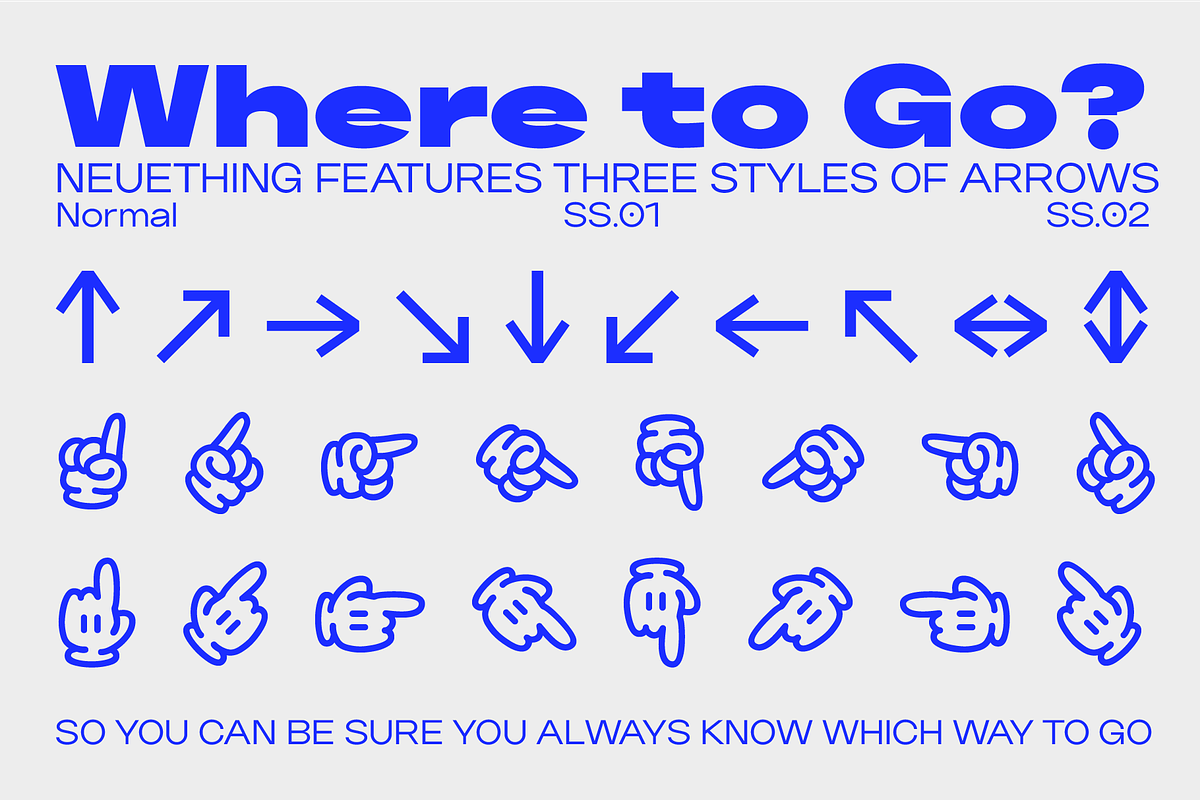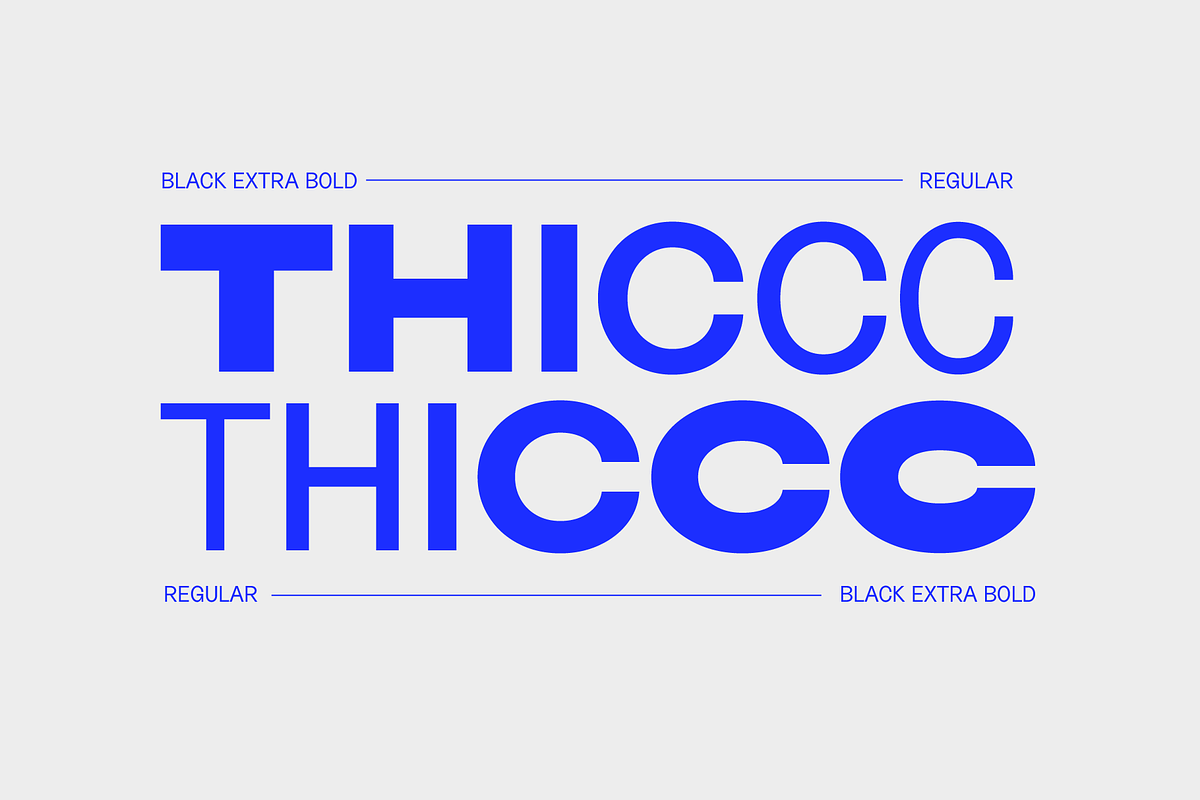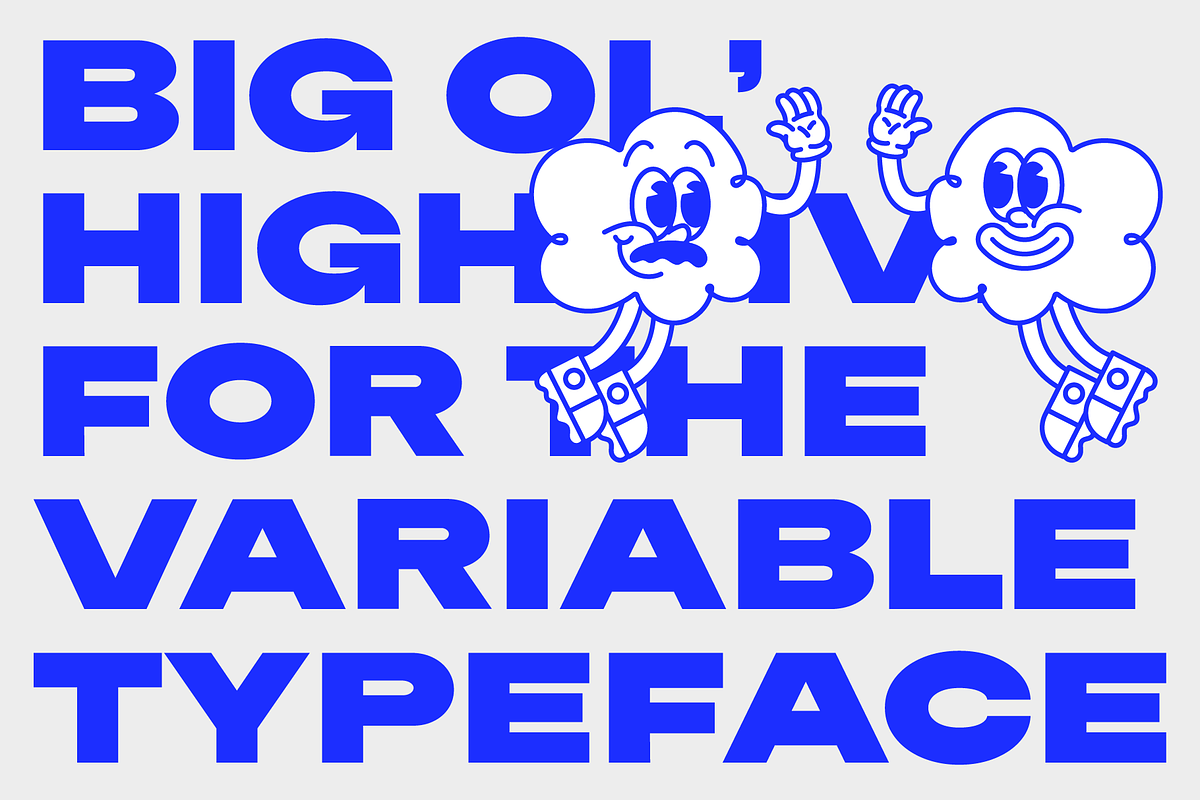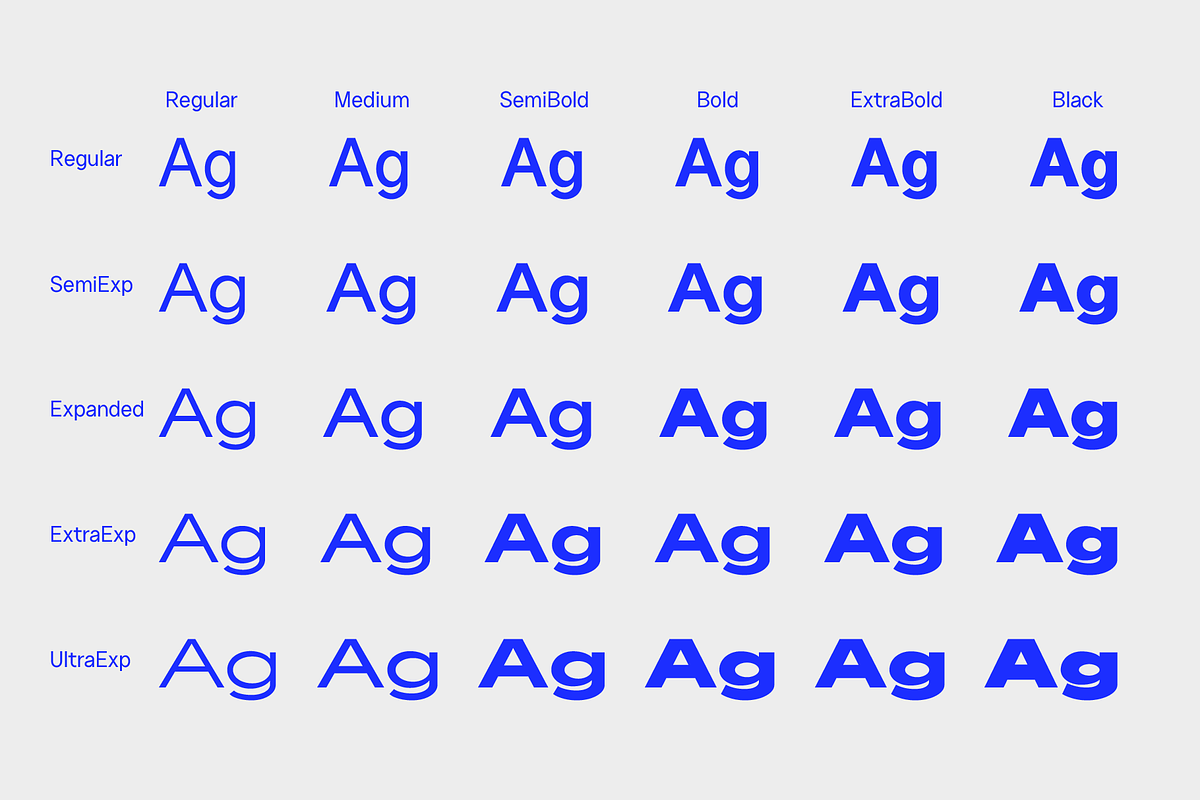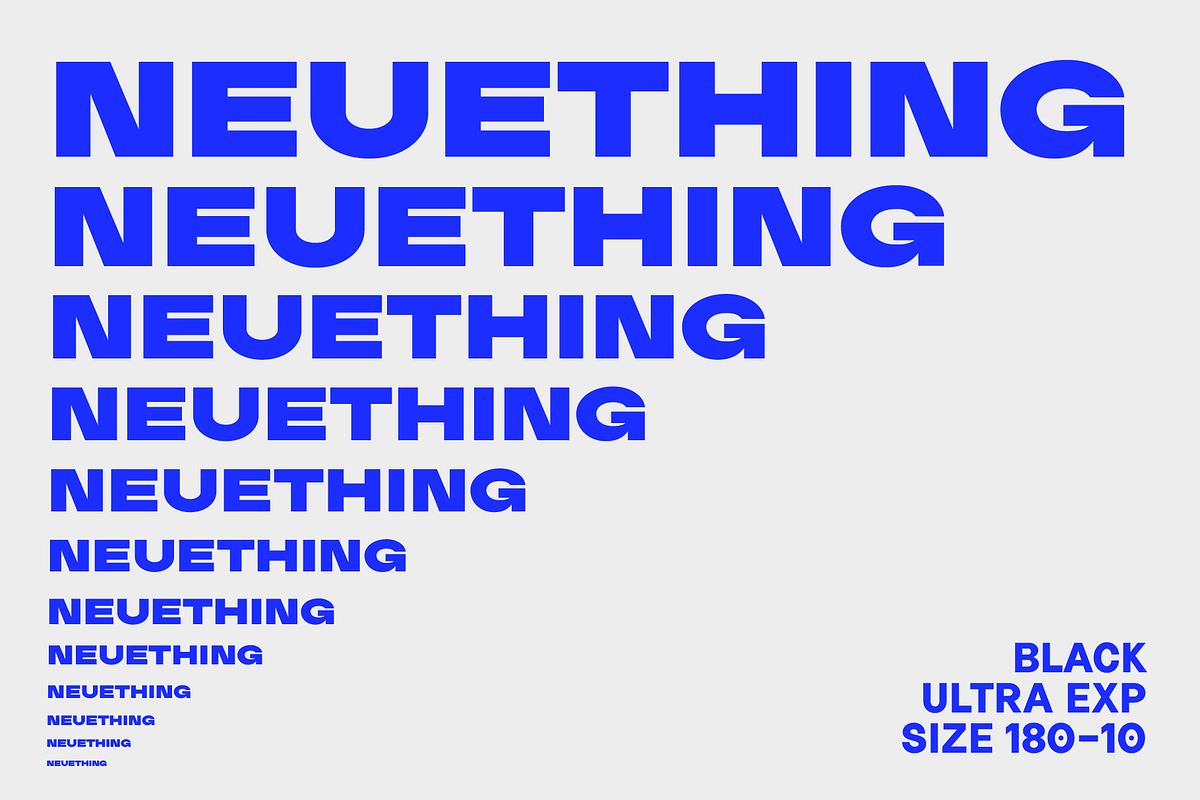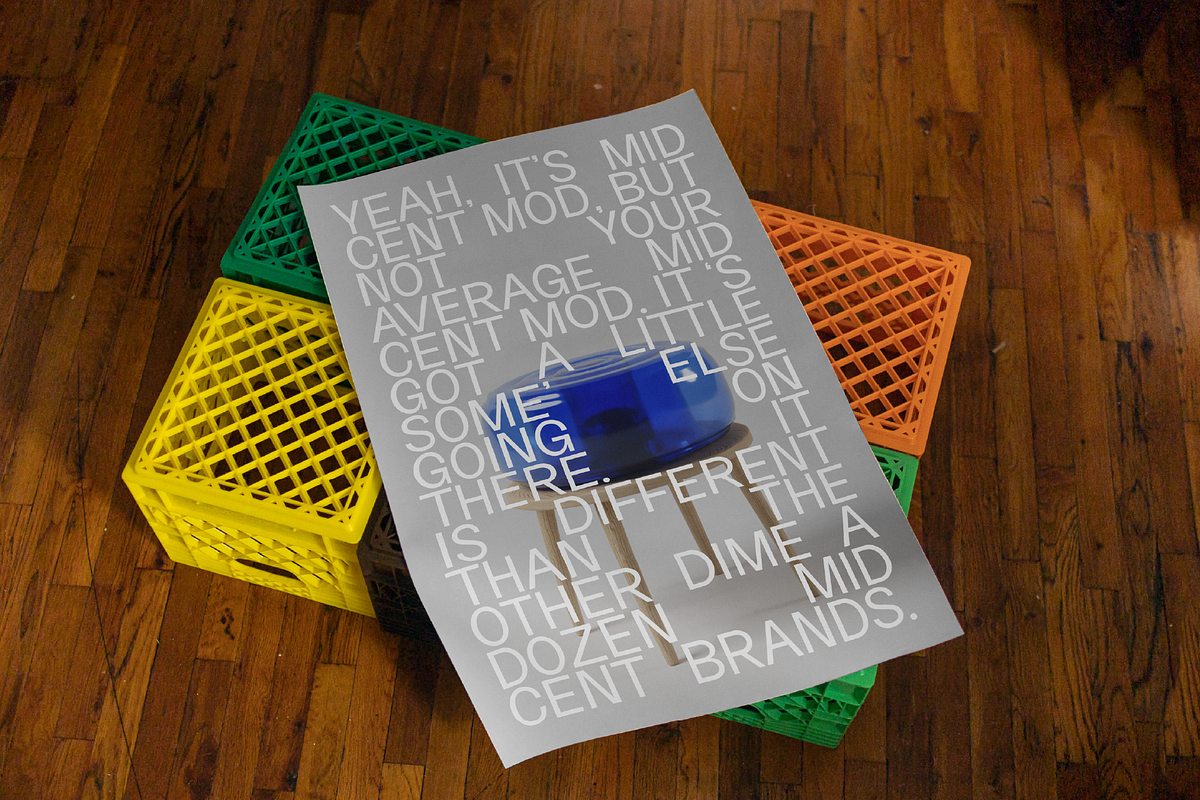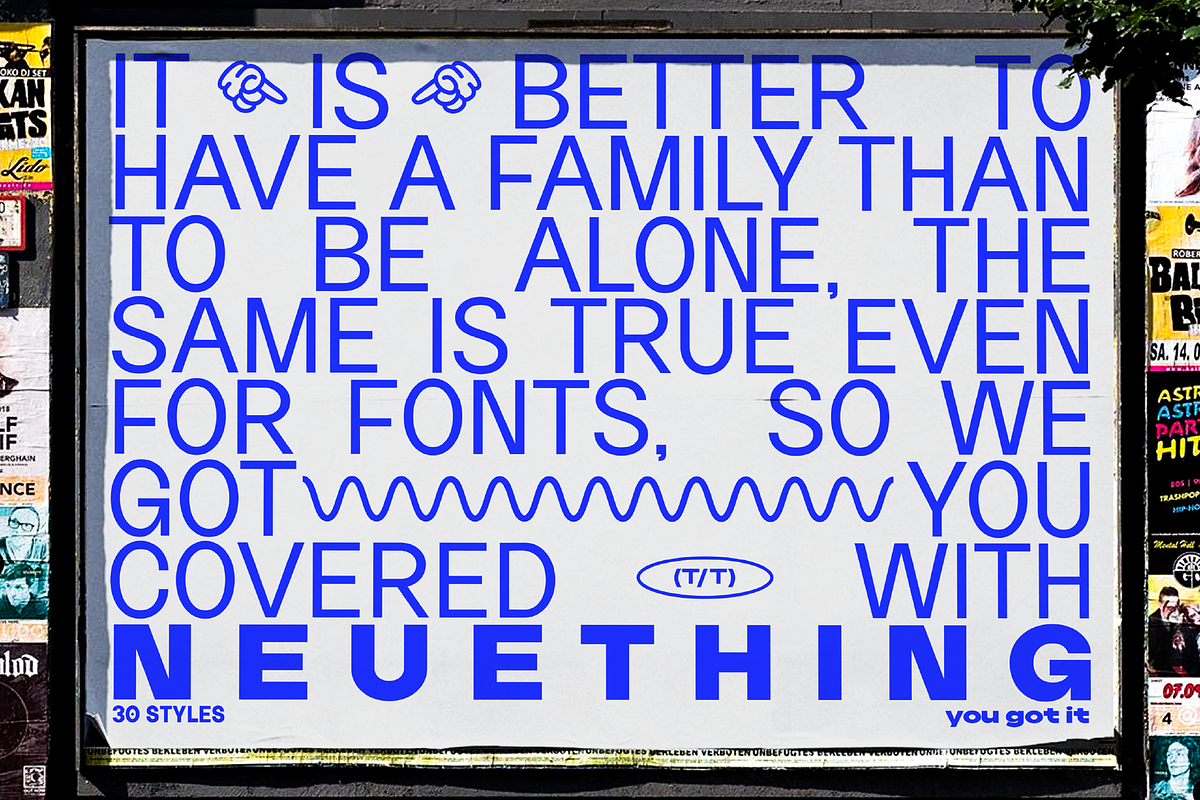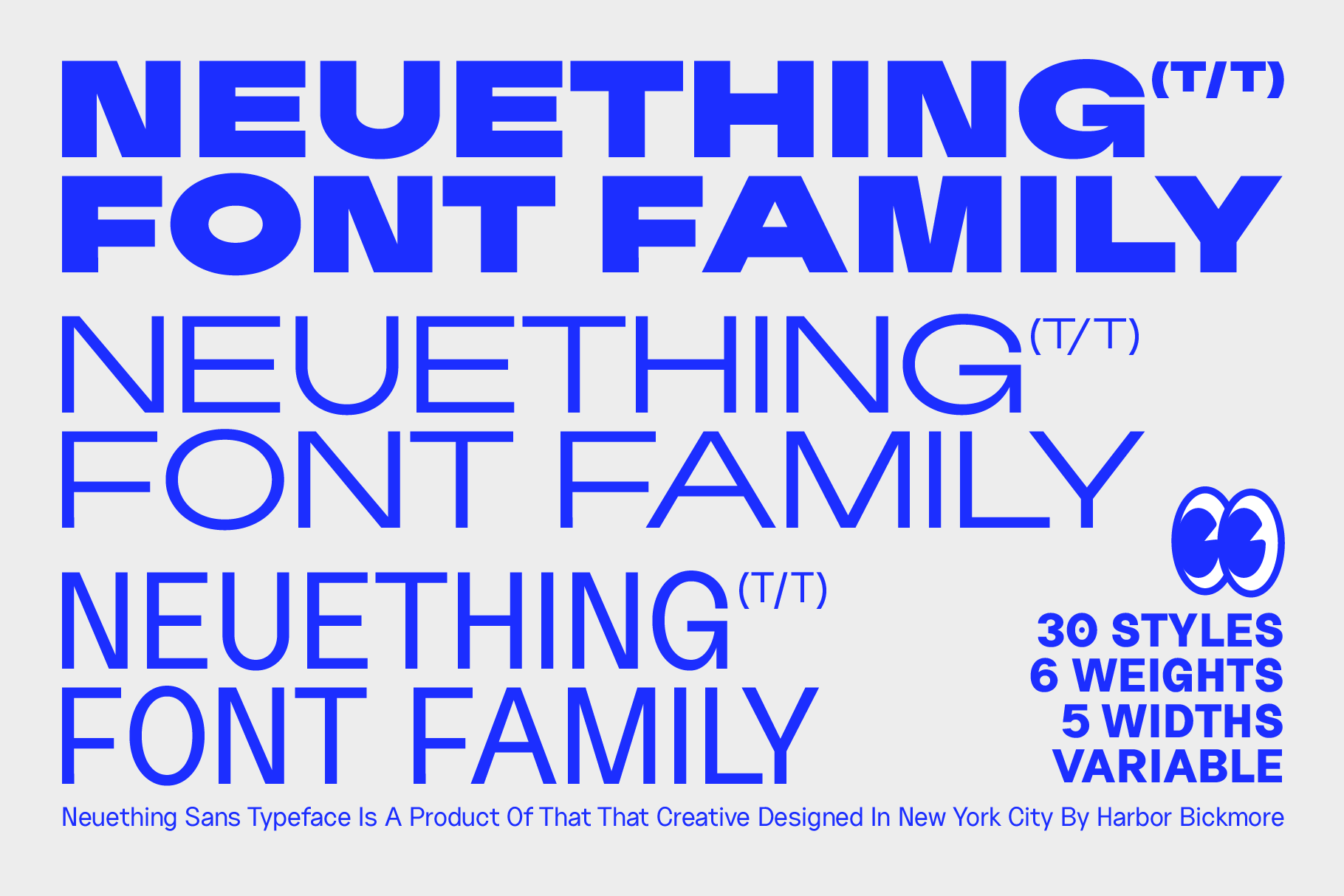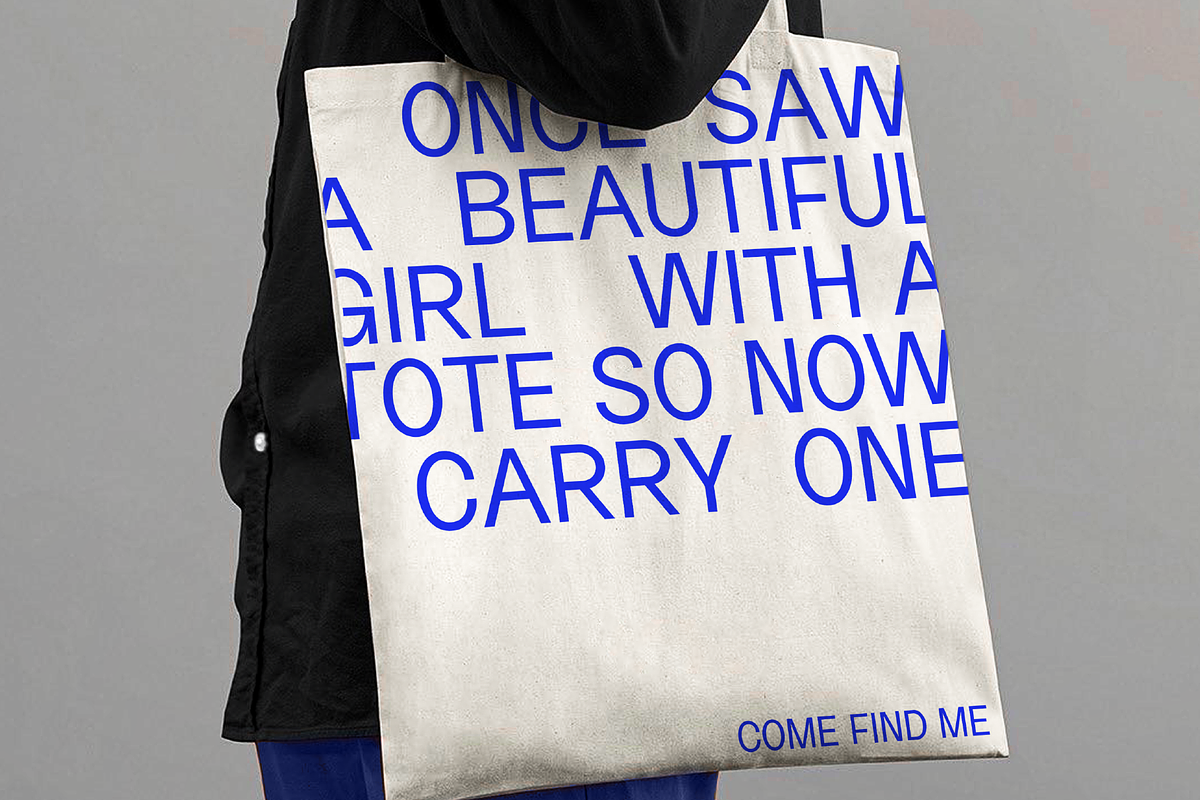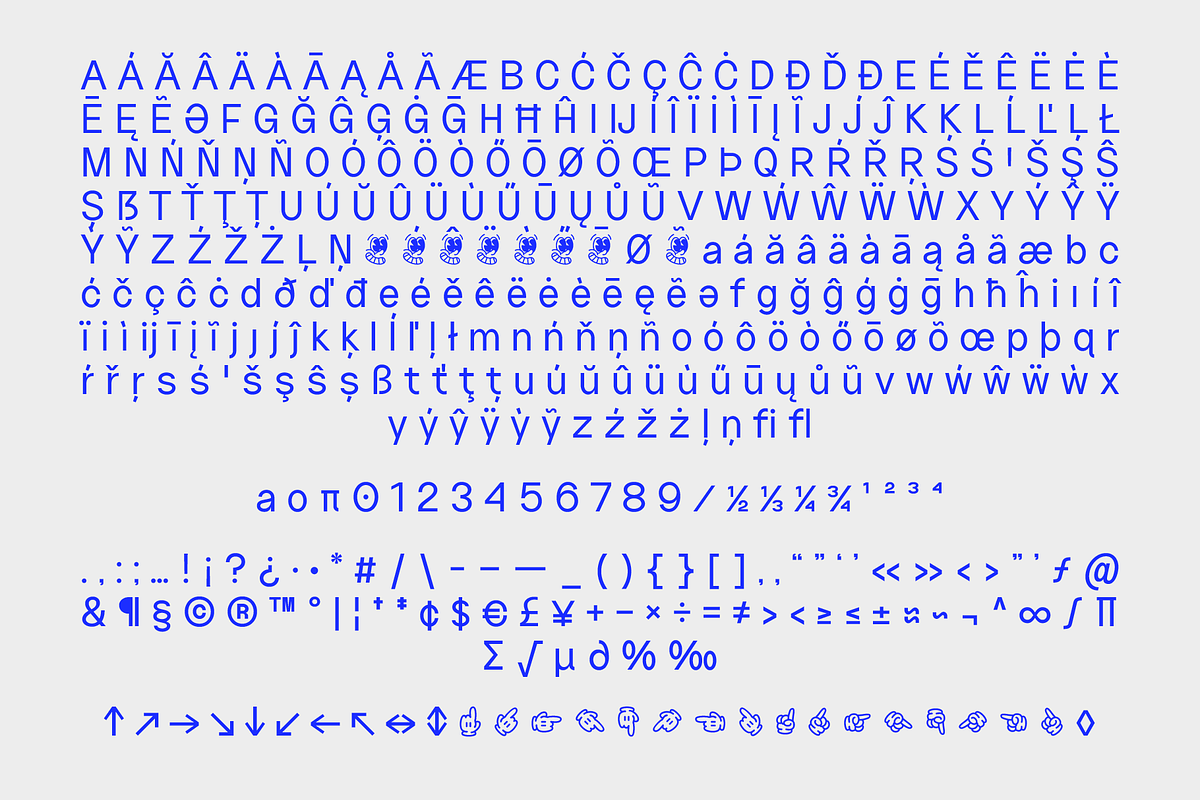
Neuething Sans Family: 30 Fonts
Neuething Sans has Expanded! This sans serif typeface comes with 30 fonts: 6 weights and five widths It is the perfect font for headlines, posters, display, as well as long blocks of body copy. I use Some version of this font in literally every design. It is my Helvetica. but... with a modern retro sign painter vibe this sans is sure to sand out (but not too much) and add an unpalatable elevation to your design: be it branding, logos, social media, magazines, or whatever you are working on.
- Caps
- Punctuations
- Arrows